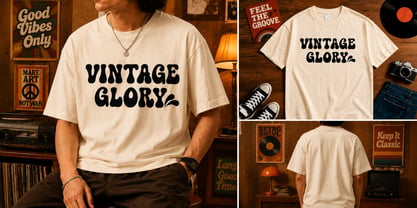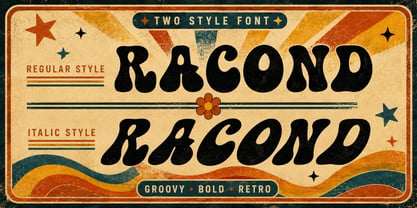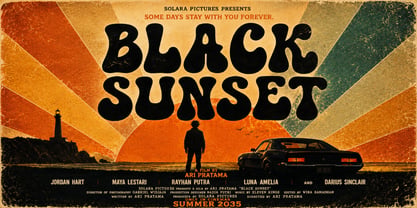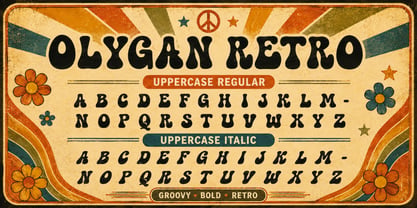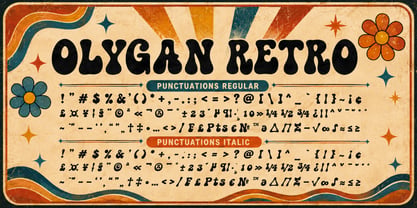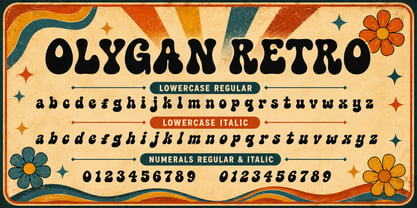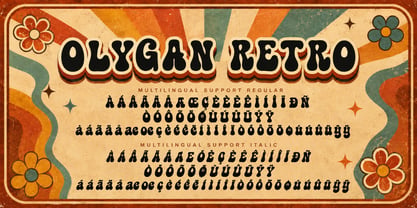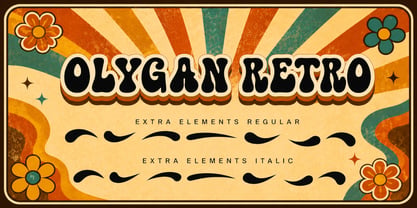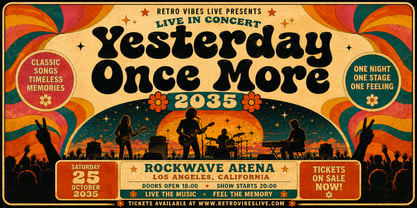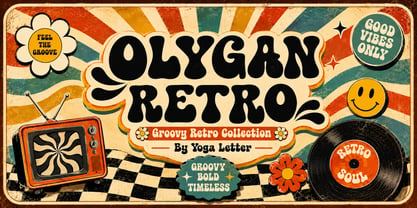
Olygan Retro
by Yoga Letter
The Olygan Retro Font Family was designed by Isroni Yoga Prasetya and published by Yoga Letter. Olygan Retro contains 2 styles and family package options. More about this family
Olygan Retro is a bold and playful display font that captures the vibrant aesthetics of the 1960s and 1970s. With its thick, groovy forms and organic curves, this font exudes a fun vintage character, making it an ideal choice for a variety of design projects. Perfect for posters, branding, t-shirts, packaging, stickers, album covers, and retro-themed designs, Olygan Retro offers a timeless groovy vibe with a striking visual impact. It features both uppercase and lowercase letters, numerals, punctuation, multilingual support, and additional design elements, ensuring versatility and creativity in your projects.